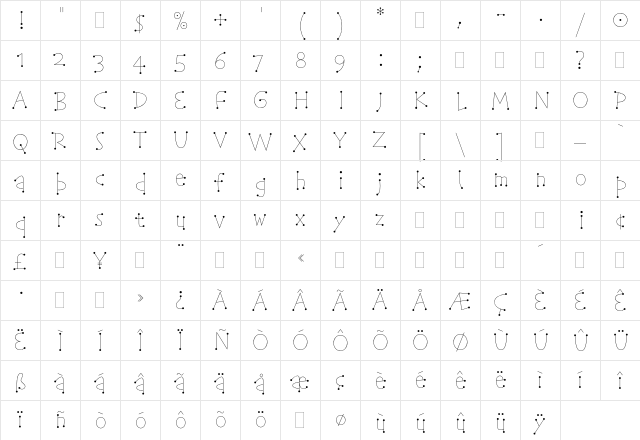
Telegram Plain
Design Context for Telegram Typeface
Telegram is a composed and adaptable typeface that performs quietly and consistently across a wide range of design contexts.